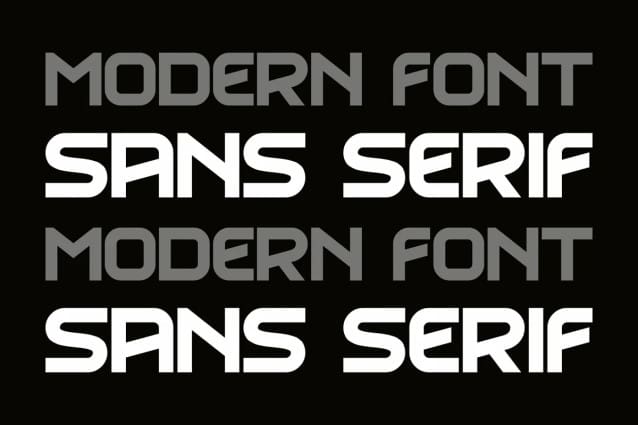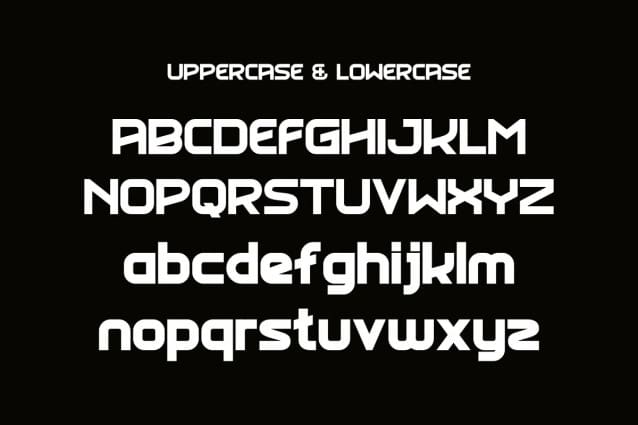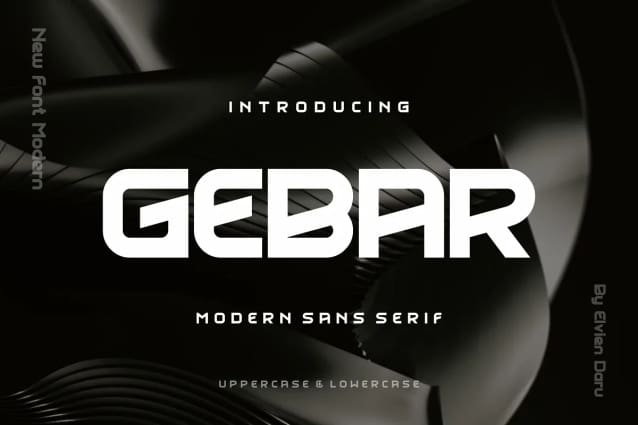
Gebar Font
Gebar Font is a bold and assertive sans serif font. No matter the topic, this font will be an incredible asset to your fonts’ library, as it has the potential to elevate any creation.